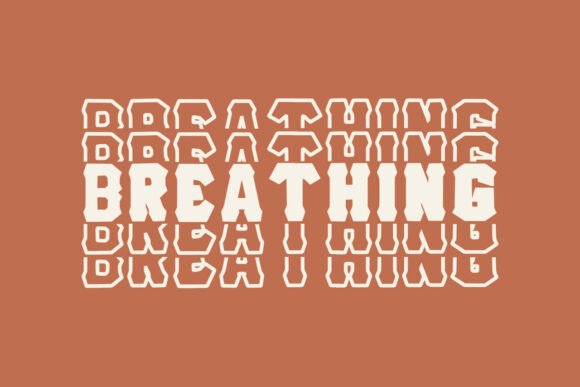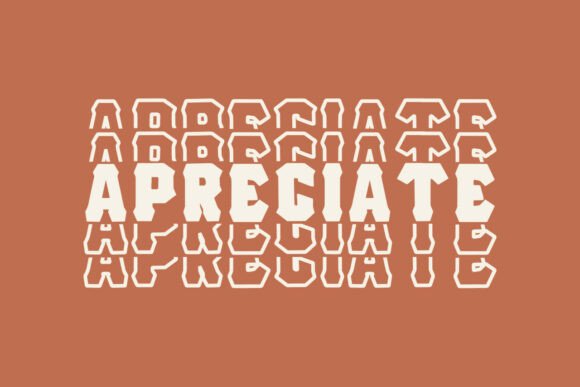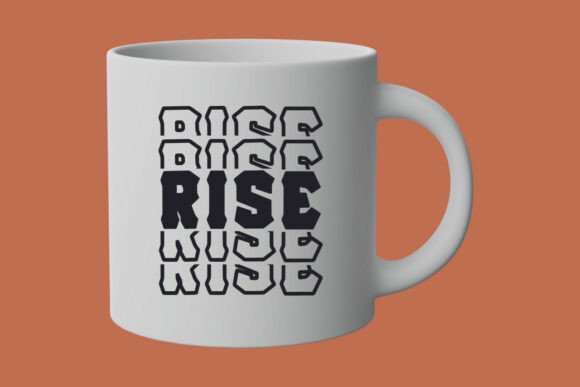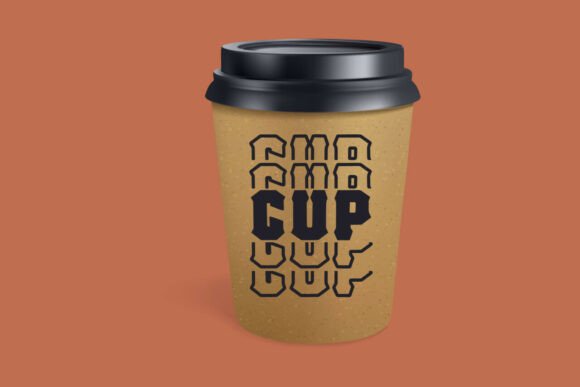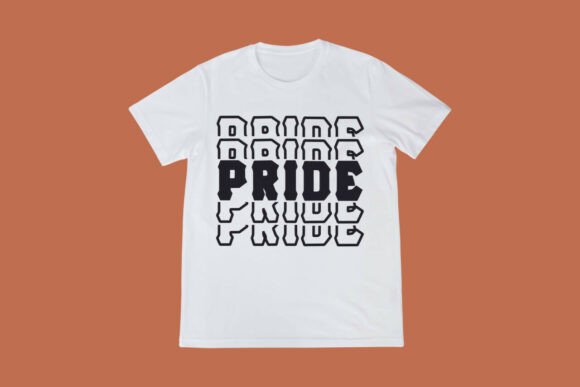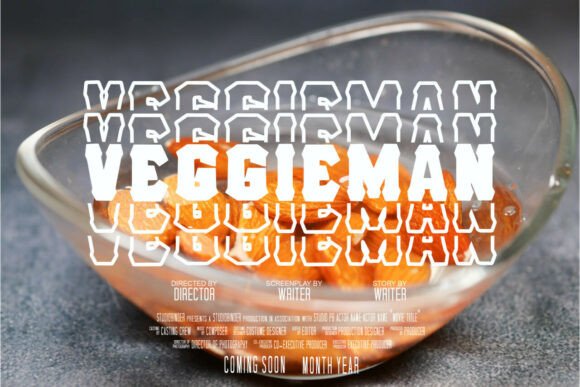
Meet Hell Forge Stacked Font: The Ultimate Display Font for Bold Designs
In the world of design, fonts play a crucial role in conveying the message and tone of a project. When it comes to creating bold and eye-catching designs, a stacked font can make all the difference. Introducing Hell Forge Stacked Font, a game-changing display font designed specifically for tight spaces and hard impact. In this article, we’ll dive into the features and benefits of Hell Forge Stacked Font, and explore its endless possibilities for designers and crafters.
The Power of Stacked Typography
Hell Forge Stacked Font is built on the principle of stacked typography, where each letter is stacked on top of the other to create a bold and compact design. This unique approach allows for maximum readability, even in tight spaces. The font’s geometry is carefully crafted to ensure that each line stacks cleanly, making it perfect for short words, names, dates, and team initials.
Key Features of Hell Forge Stacked Font
- Bold and Compact Design: Hell Forge Stacked Font is designed to make a statement. Its bold and compact design makes it perfect for creating badge-like marks, logos, and graphics that demand attention.
- High Readability: Despite its bold design, Hell Forge Stacked Font remains highly readable, even in small sizes. This makes it ideal for use on tags, sleeves, caps, and thumbnails.
- Versatility: Hell Forge Stacked Font is incredibly versatile and can be used for a wide range of applications, including jerseys, tool labels, biker patches, gaming graphics, and rugged product logos.
- Geometry that Loves Outlines and Foils: The font’s geometry is optimized for use with outlines, metallic foils, and laser cuts. This allows designers to create premium-looking mockups with ease.
Hell Forge Stacked Font opens up a world of creative possibilities for designers and crafters. Here are just a few examples:
- Jerseys and Sports Apparel: Create bold and eye-catching jerseys, team logos, and sports apparel with Hell Forge Stacked Font.
- Biker Patches and Leatherwork: Add a touch of rugged elegance to biker patches, leather jackets, and accessories with this unique font.
- Gaming Graphics: Use Hell Forge Stacked Font to create bold and futuristic gaming graphics, logos, and branding materials.
- Rugged Product Logos: Create durable and eye-catching logos for outdoor gear, tools, and equipment with Hell Forge Stacked Font.
Tips and Tricks for Using Hell Forge Stacked Font
To get the most out of Hell Forge Stacked Font, here are some tips and tricks to keep in mind:
- Experiment with Colors and Foils: Don’t be afraid to experiment with different colors and metallic foils to add depth and dimension to your designs.
- Play with Scale and Proportion: Hell Forge Stacked Font can be used in a variety of sizes and proportions. Experiment with different scales to create visually interesting designs.
- Combine with Other Fonts: Hell Forge Stacked Font can be paired with other fonts to create interesting contrast and visual hierarchy.
Hell Forge Stacked Font is a game-changing display font that offers a unique combination of boldness, readability, and versatility. Whether you’re a designer, crafter, or DIY enthusiast, this font is sure to inspire you to create bold and eye-catching designs. With its endless possibilities and flexibility, Hell Forge Stacked Font is an essential tool to have in your design arsenal.